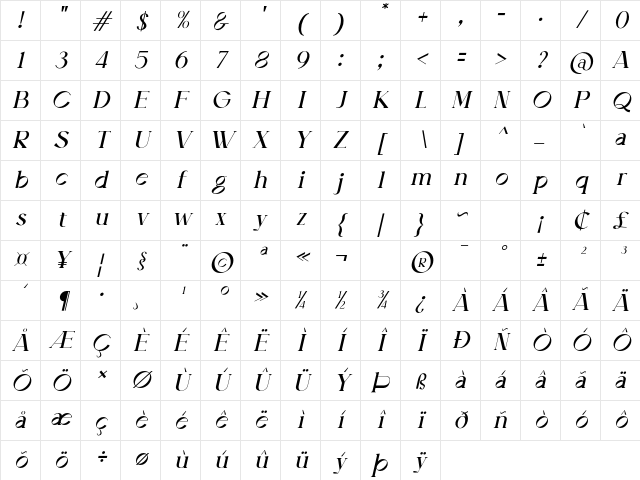
Airy Restoration is a composed and adaptable typeface that performs quietly and consistently across a wide range of design contexts. The slanted form adds forward momentum and visual energy.